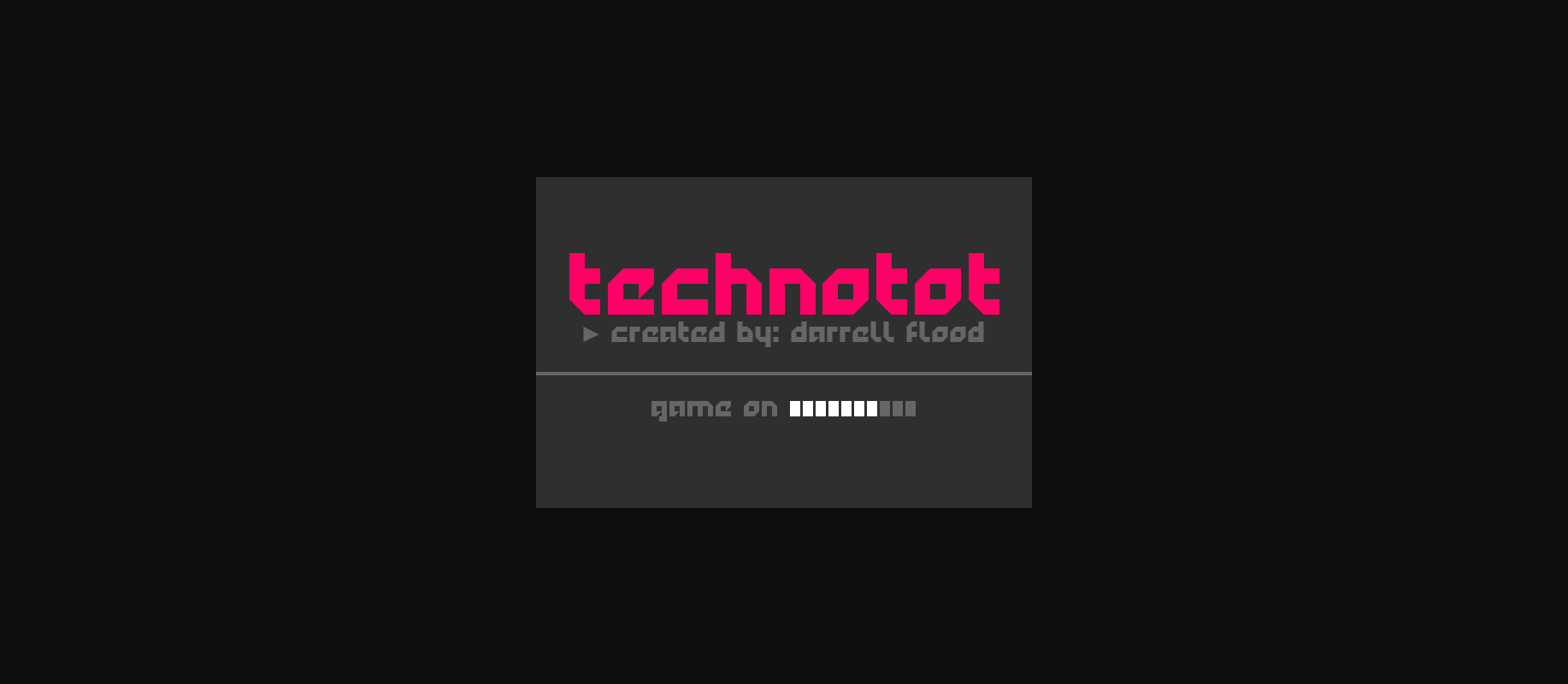
HomeDecorative FontsTechnotot Font Decorative Fonts Technotot Font FacebookXPinterestWhatsApp 1 of 1 About Technotot Font Angular, minimalist font – well suited for sci-fi and futuristic themes. Font created by Darrell Flood. DOWNLOAD NOW People also explored Rum Raisin Pro Chalky View Font Kittens Silhouette Font Marrie Dream Font Hallo Hallo Font Papa Font Charlotte Font Rubric Font Colbey Semi-Bold Font 331 0 TagsTechnotot Font Previous articleDragonlands FontNext articleHarty Font LEAVE A REPLY Cancel reply Comment: Please enter your comment! Name:* Please enter your name here Email:* You have entered an incorrect email address! Please enter your email address here Website: Save my name, email, and website in this browser for the next time I comment. Personal Use Free Engine Personal Use Free Read more about this font Omira Personal Use Free Read more about this font Harshita Personal Use Free Read more about this font Round Geometric Personal Use Free Read more about this font BLOG Best Fonts for YouTube Videos: Make Your Thumbnails Stand Out Best Fonts for YouTube Videos: Make Your Thumbnails Stand Out Choosing the right font can make a massive difference in how your YouTube videos perform.... Best Fonts for T-Shirt Design – Top 2025 Picks Modern Sans-Serif Fonts That Brands Love in 2025 Transform Your Website: Elevate Your Typography with 7 Best Web Font Generators